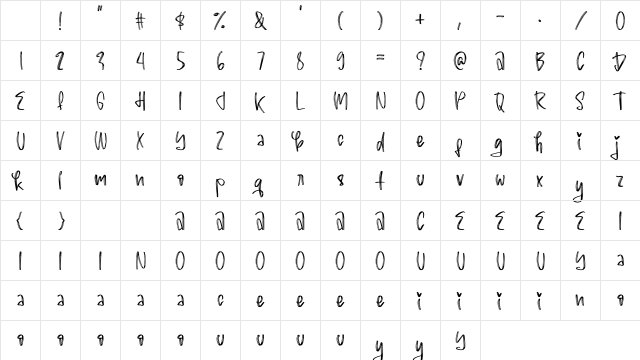
Complete Lovebird Regular glyph index. Displaying only characters natively supported by Lovebird Regular font.
Lovebird is a composed and adaptable typeface that performs quietly and consistently across a wide range of design contexts.